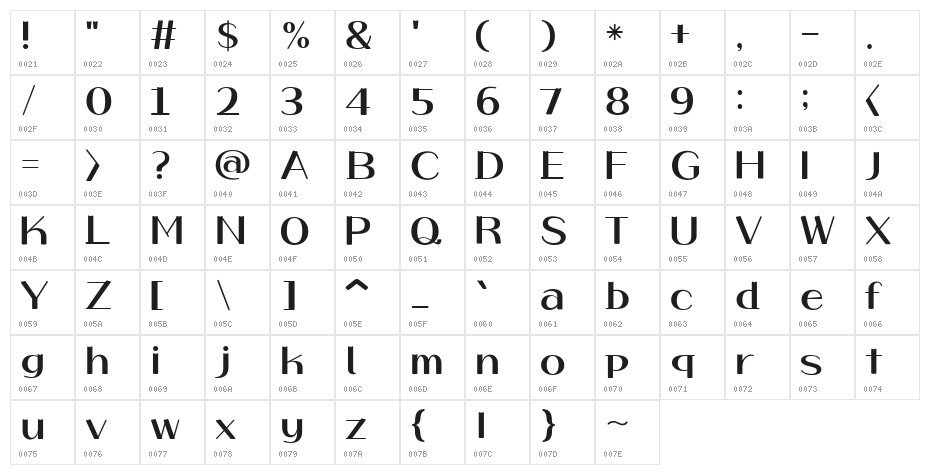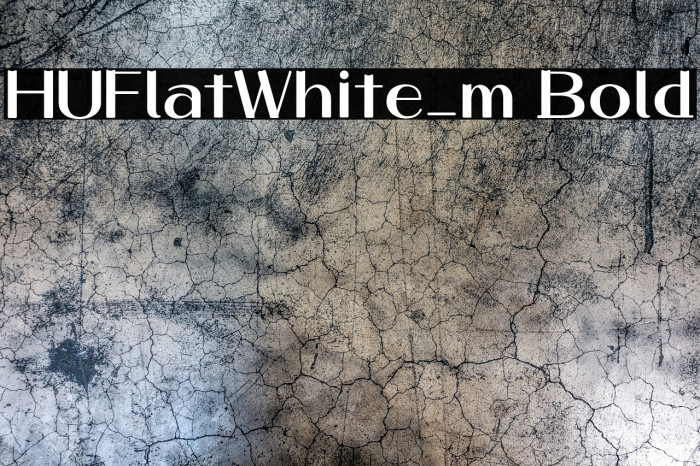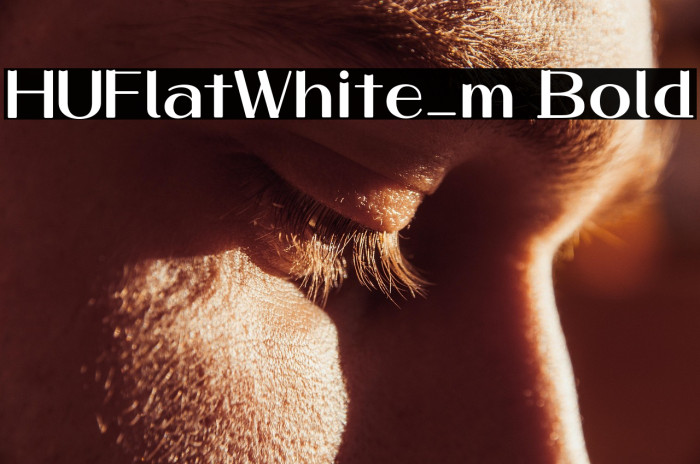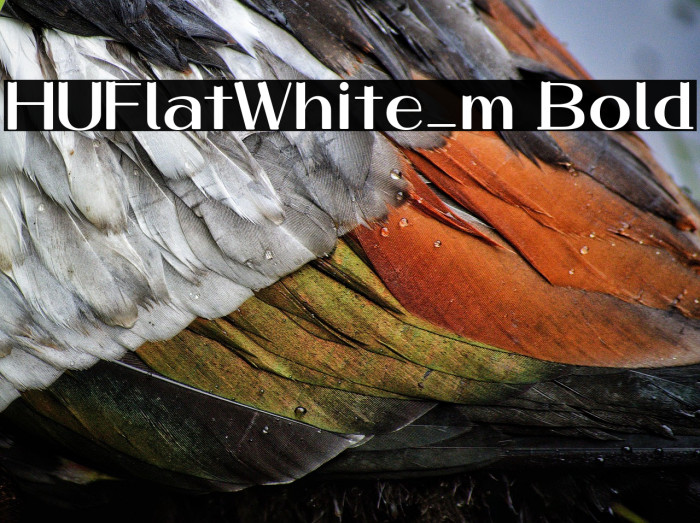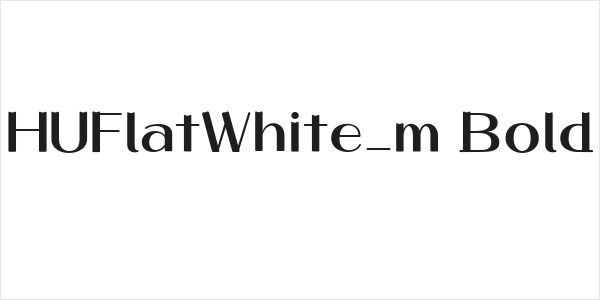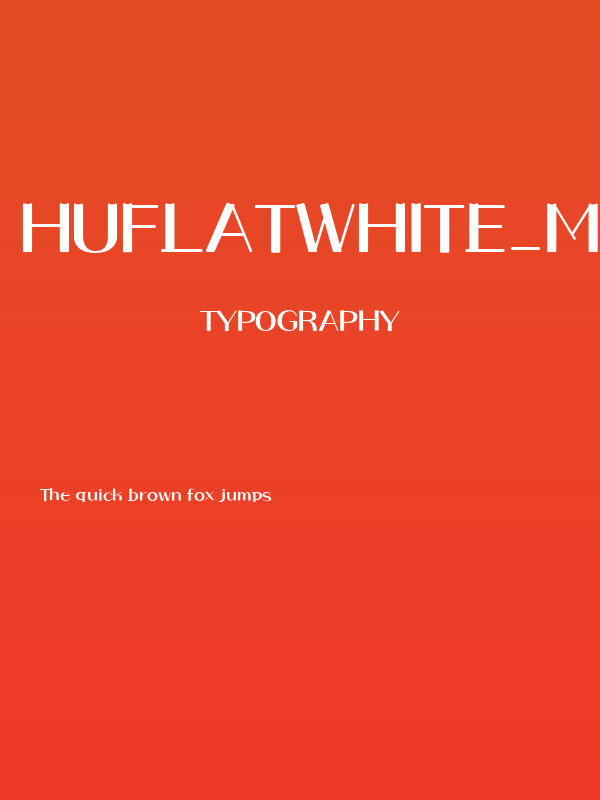
HUFlatWhite_m Bold Font
HUFlatWhite_m Bold Description
This font features a bold and modern aesthetic with clean, sharp lines and a slightly condensed form. The uppercase letters are strong and commanding, while the lowercase letters maintain a consistent flow with rounded edges that add a touch of softness. The numerals are clear and legible, making them suitable for various applications. Special characters are well-defined, enhancing the font's versatility. The overall design is balanced, with a medium contrast in stroke thickness, providing a harmonious appearance that is both professional and approachable.
| Proposed Projects | Ideal for branding, headlines, posters, and digital media where a strong, modern presence is desired. |